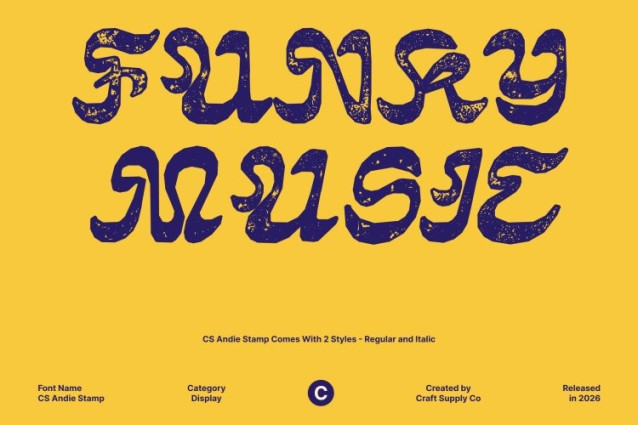
CS Andie Stamp Font
CS Andie Stamp Font This is a modern trippy display font infused with a bold stamp effect that adds raw texture and nostalgic depth. Its fluid, wavy letterforms still feel surreal and psychedelic, but the stamped finish introduces worn edges, ink irregularities, and handcrafted imperfections. This combination creates a striking contrast between expressive modern forms and an old-school, analog print aesthetic.
Funky, Free-Spirited Energy with Aged Personality
The cheerful, funky vibes of this font are amplified by its vintage stamp texture. Each letter feels pressed by hand, giving the font an organic rhythm that feels spontaneous, artistic, and alive. The distressed surface adds character and warmth, making the font feel less digital and more human perfect for designs that celebrate freedom, creativity, and individuality.
Expressive Forms with Artistic, Old-Print Texture
While the shapes remain bold and playful, the stamp effect brings a sense of history and authenticity. The slightly rough texture evokes retro posters, underground zines, and DIY print culture, adding depth and visual interest without sacrificing readability. This makes both expressive and impactful.
Perfect for Psychedelic, Retro, and Creative Statement Designs
Ideal for music posters, rave flyers, album covers, experimental branding, fashion graphics, and artistic editorials, this font delivers a loud visual voice with vintage attitude. It’s made for creatives who want typography that feels like artwork trippy, textured, and unforgettable.